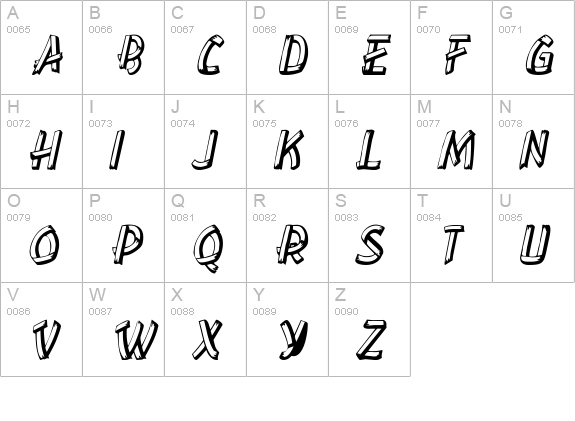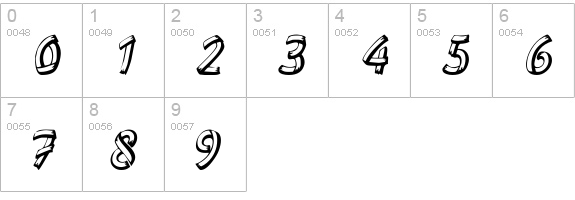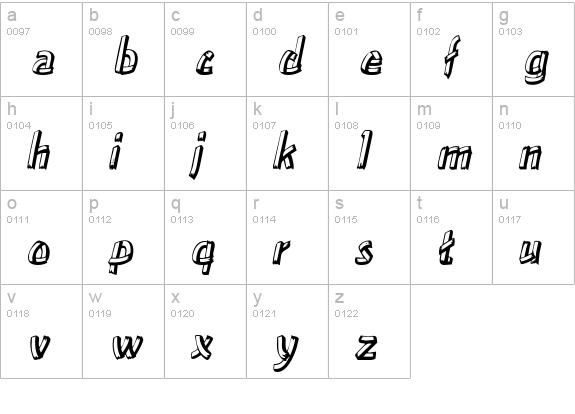
Treehouse Oblique Font Details
Treehouse Oblique is a distinctive, italic variant in the Treehouse typeface family \xE2\x80\x94 well suited to design and typography projects.
Treehouse Oblique is a visually striking and versatile font that exudes an air of modernity and creativity. With its unique oblique style, this font adds a touch of elegance and sophistication to any design project. Whether you are designing a logo, creating a poster, or crafting a website, Treehouse Oblique is sure to make a lasting impression. Featuring clean lines and sleek curves, Treehouse Oblique is a perfect blend of simplicity and sophistication. The oblique slant of the letters adds a sense of movement and dynamism, making this font perfect for conveying a sense of energy and forward-thinking. Its sharp edges and distinct angles give it a contemporary and stylish look, allowing it to stand out among other fonts. One of the most appealing aspects of Treehouse Oblique is that it is freely available to download. You can easily access this font at FontsMarket.com, a reputable online platform that offers a vast collection of high-quality fonts. By making Treehouse Oblique freely available, the creators of this font have provided designers and creatives with a valuable resource, allowing them to elevate their designs without any financial constraints. The versatility of Treehouse Oblique is another standout feature. Whether you are looking to create a professional and corporate design or a fun and playful one, this font can adapt to suit your needs. Its clean and legible characters make it a great choice for body text, while its bold and eye-catching nature ensures that it can also command attention as a headline or title font. In addition to its aesthetic appeal, Treehouse Oblique is also highly practical. With a wide range of characters and symbols, this font supports multiple languages, making it accessible to a global audience. Its well-balanced letterforms and consistent spacing ensure optimal readability, even in smaller sizes. Overall, Treehouse Oblique is a font that effortlessly combines style, versatility, and practicality. Its unique oblique design adds a touch of sophistication to any project, while its freely available nature makes it an invaluable tool for designers. Whether you are a seasoned professional or an aspiring creative, Treehouse Oblique is a must-have font that will elevate your designs to new heights. Download it now at FontsMarket.com and unleash your creativity.